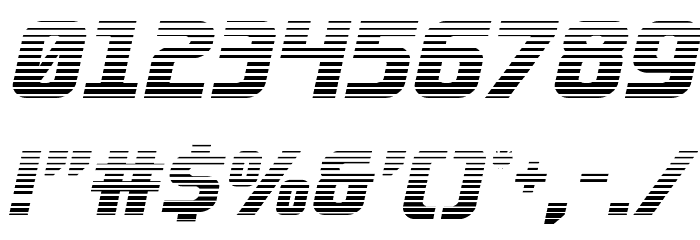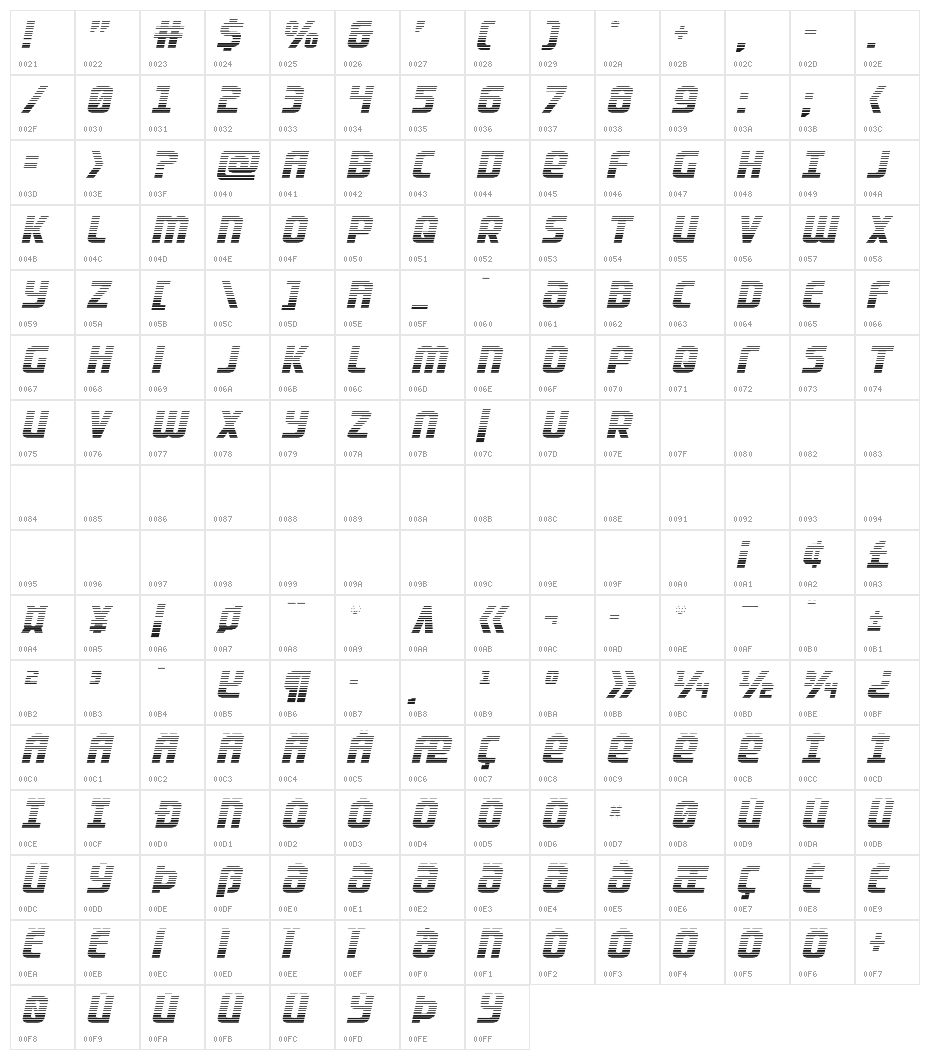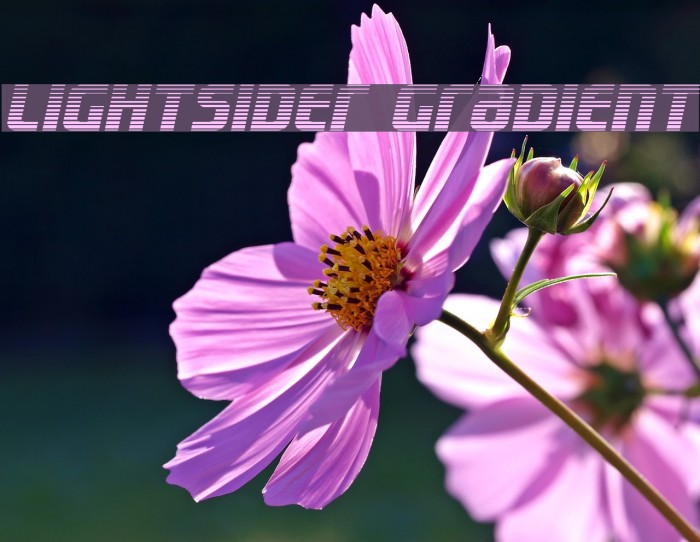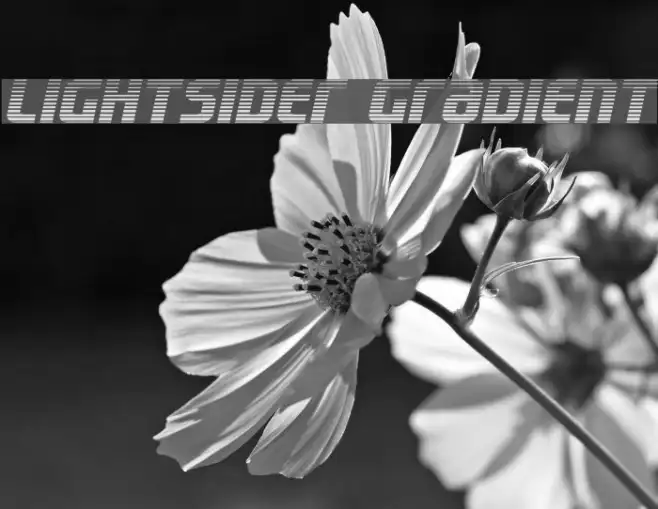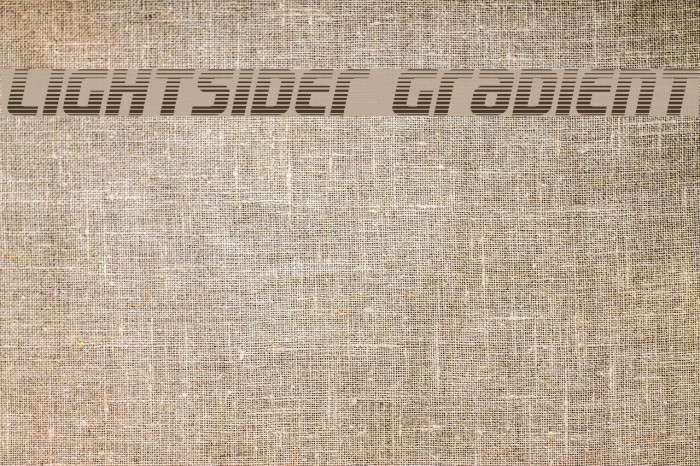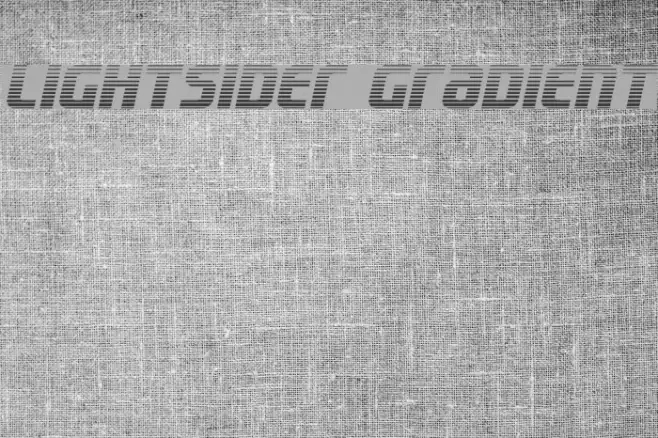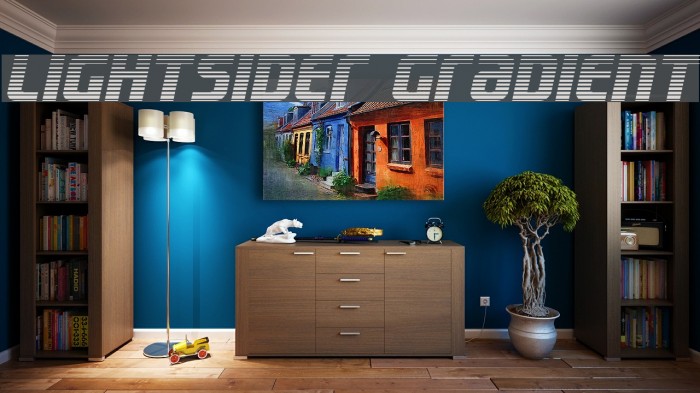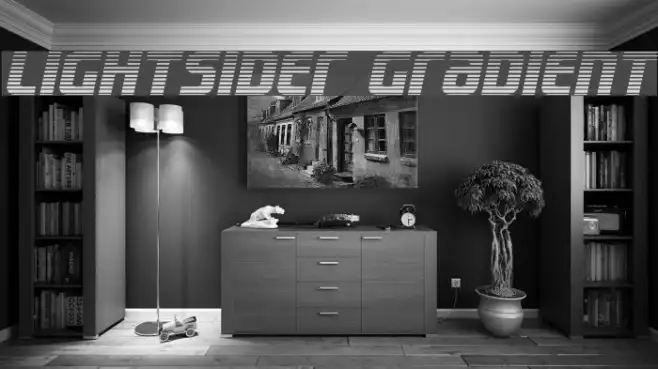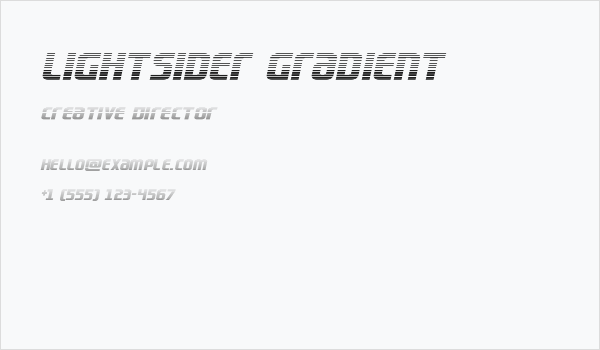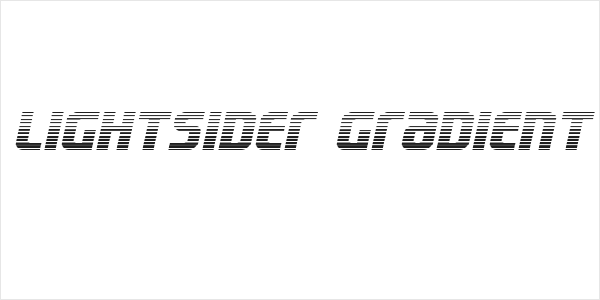
Lightsider Gradient Font
Lightsider Gradient Description
This font features a bold, futuristic design with a distinctive gradient effect created by horizontal lines cutting through each character. The uppercase and lowercase letters maintain a consistent style, emphasizing a sense of motion and speed. The numbers and special characters follow the same aesthetic, ensuring uniformity across all glyphs. The font's unique appearance makes it ideal for projects that require a modern and dynamic look.
| Proposed Projects | Ideal for sci-fi themed designs, technology branding, video game titles, and dynamic posters. |